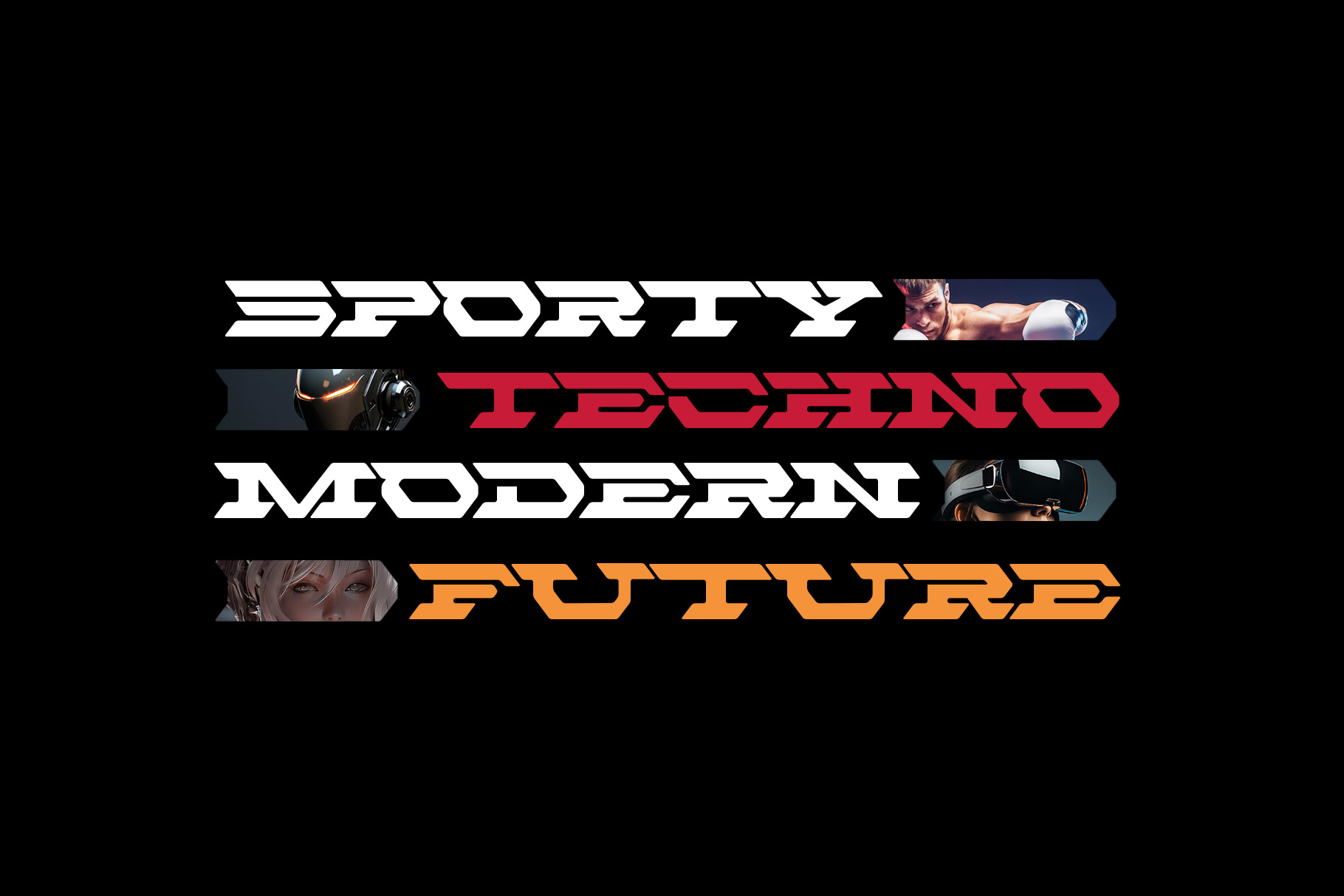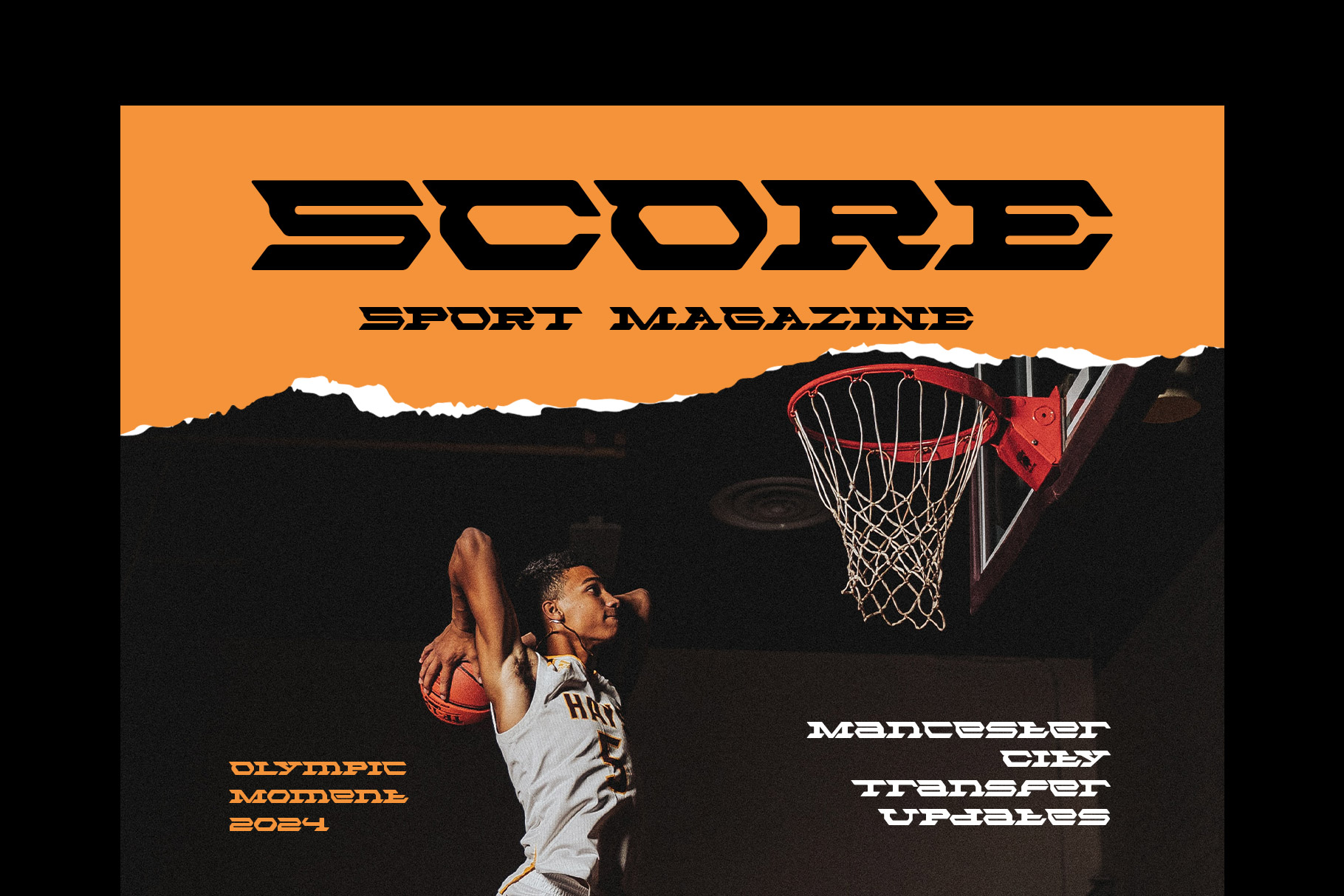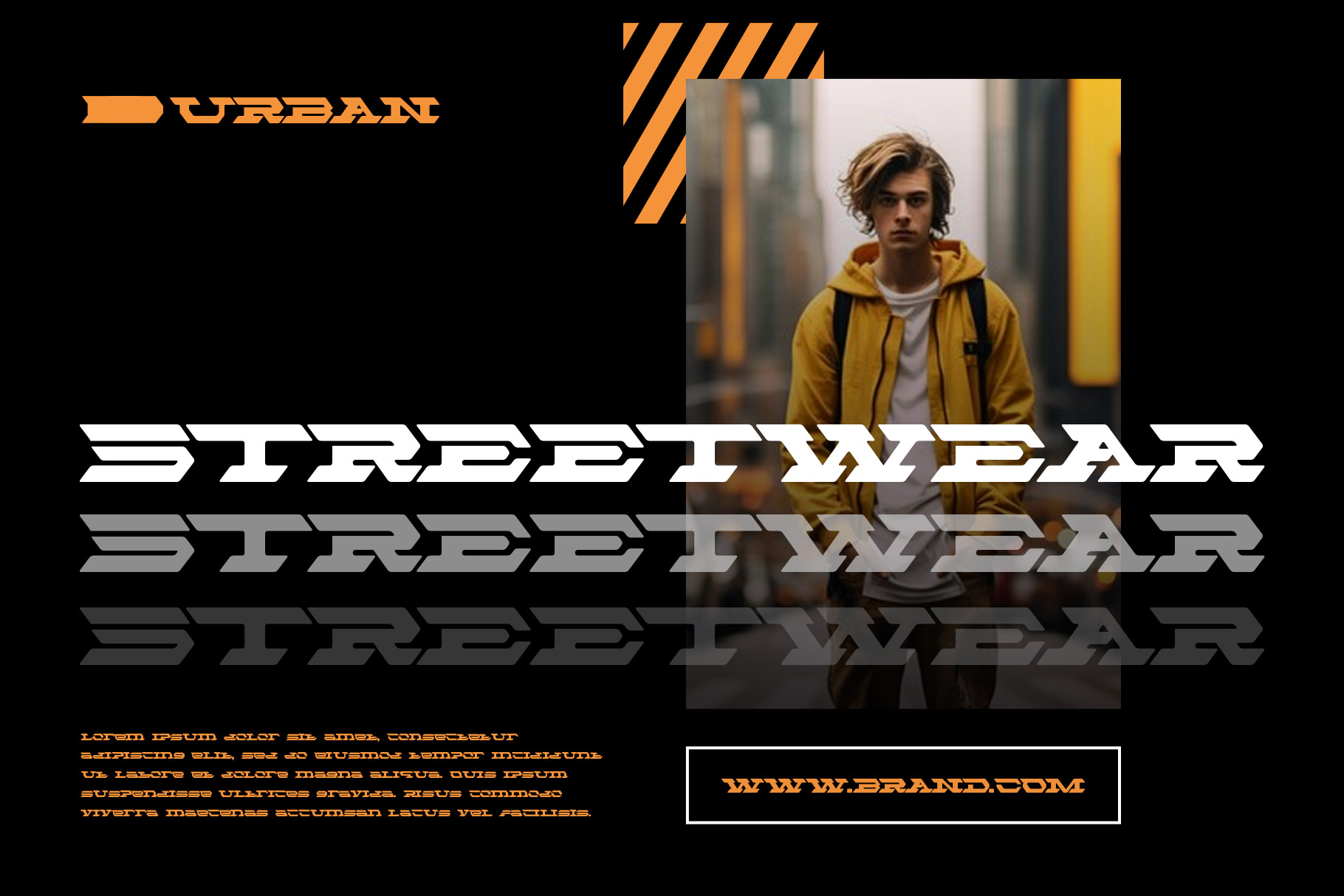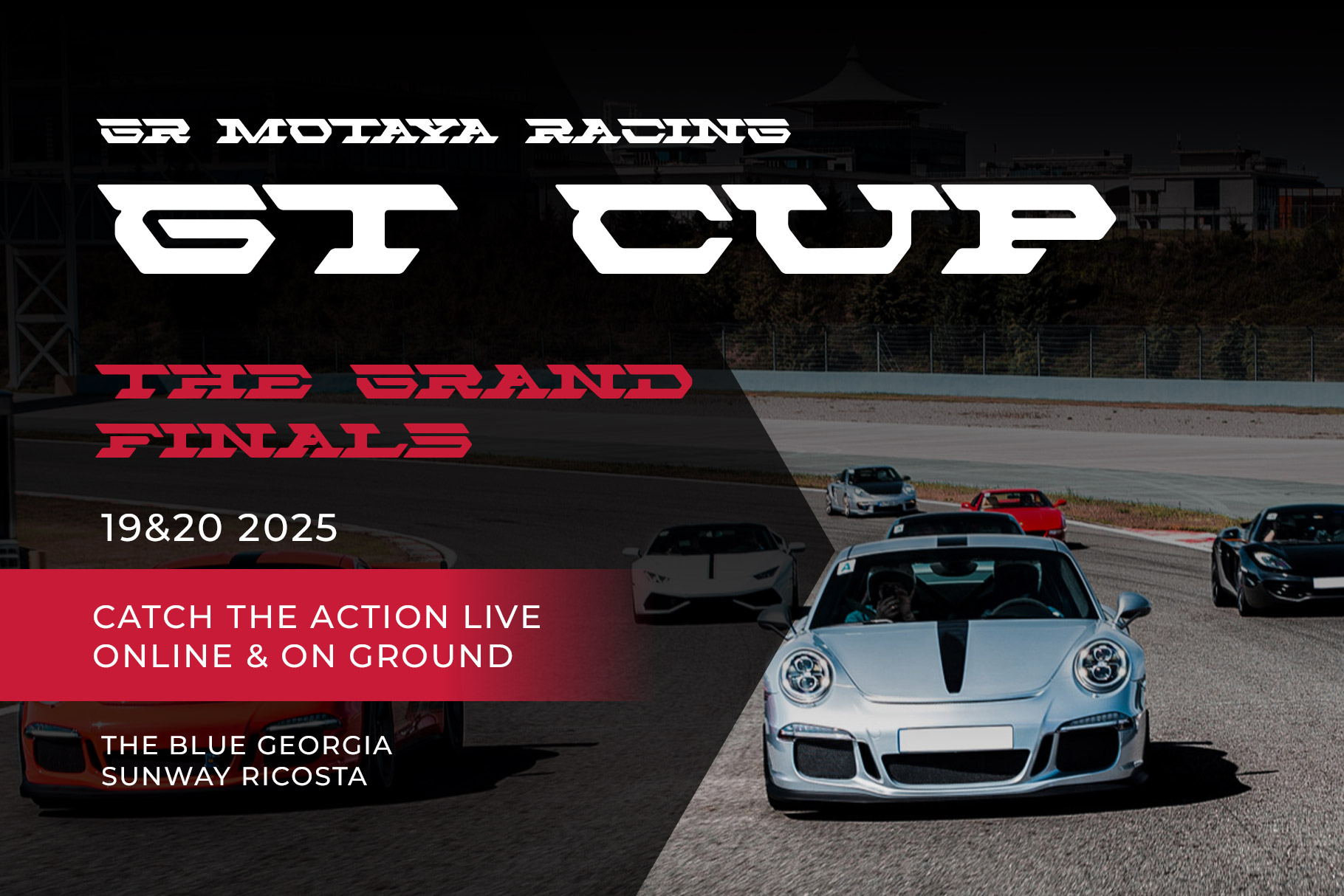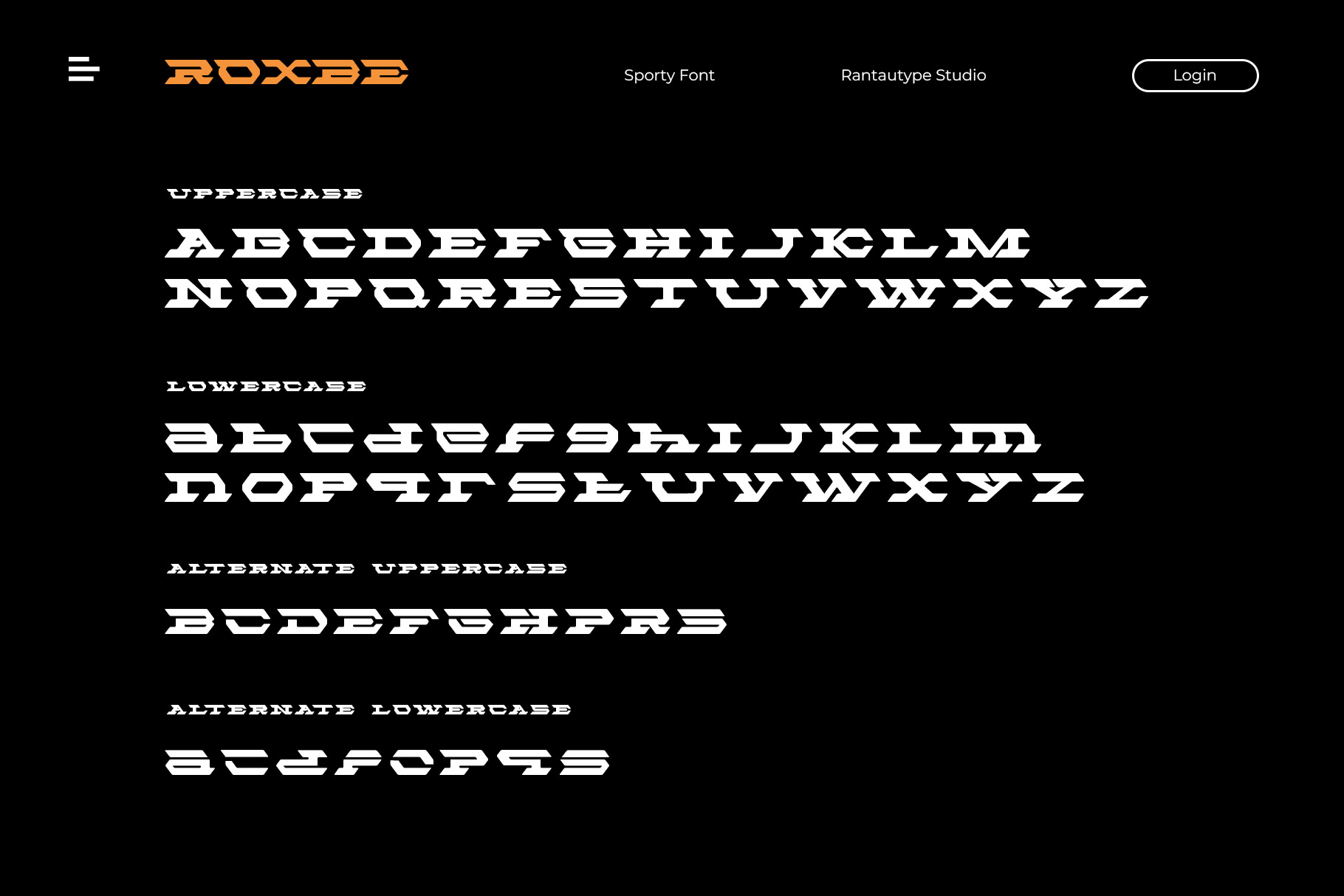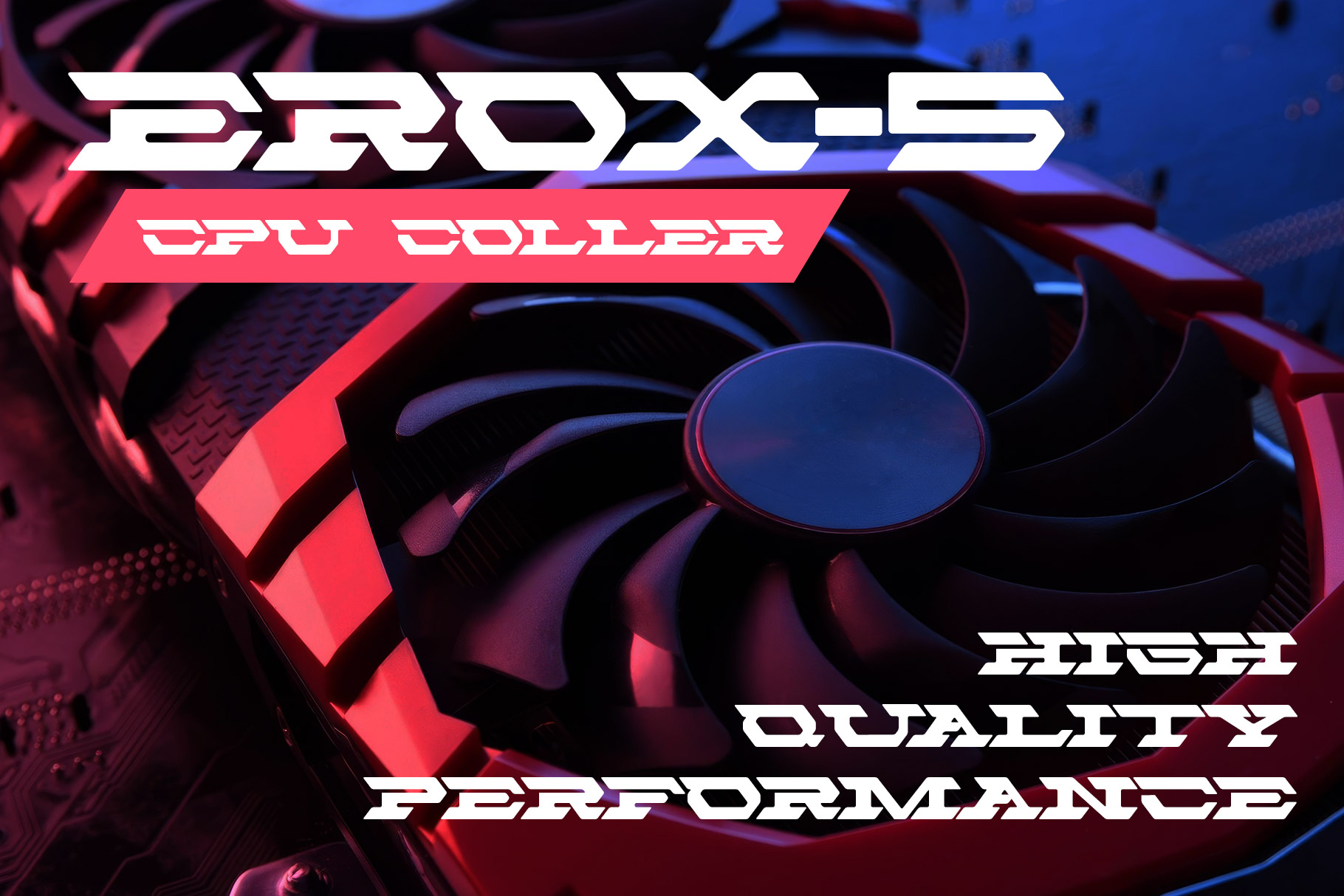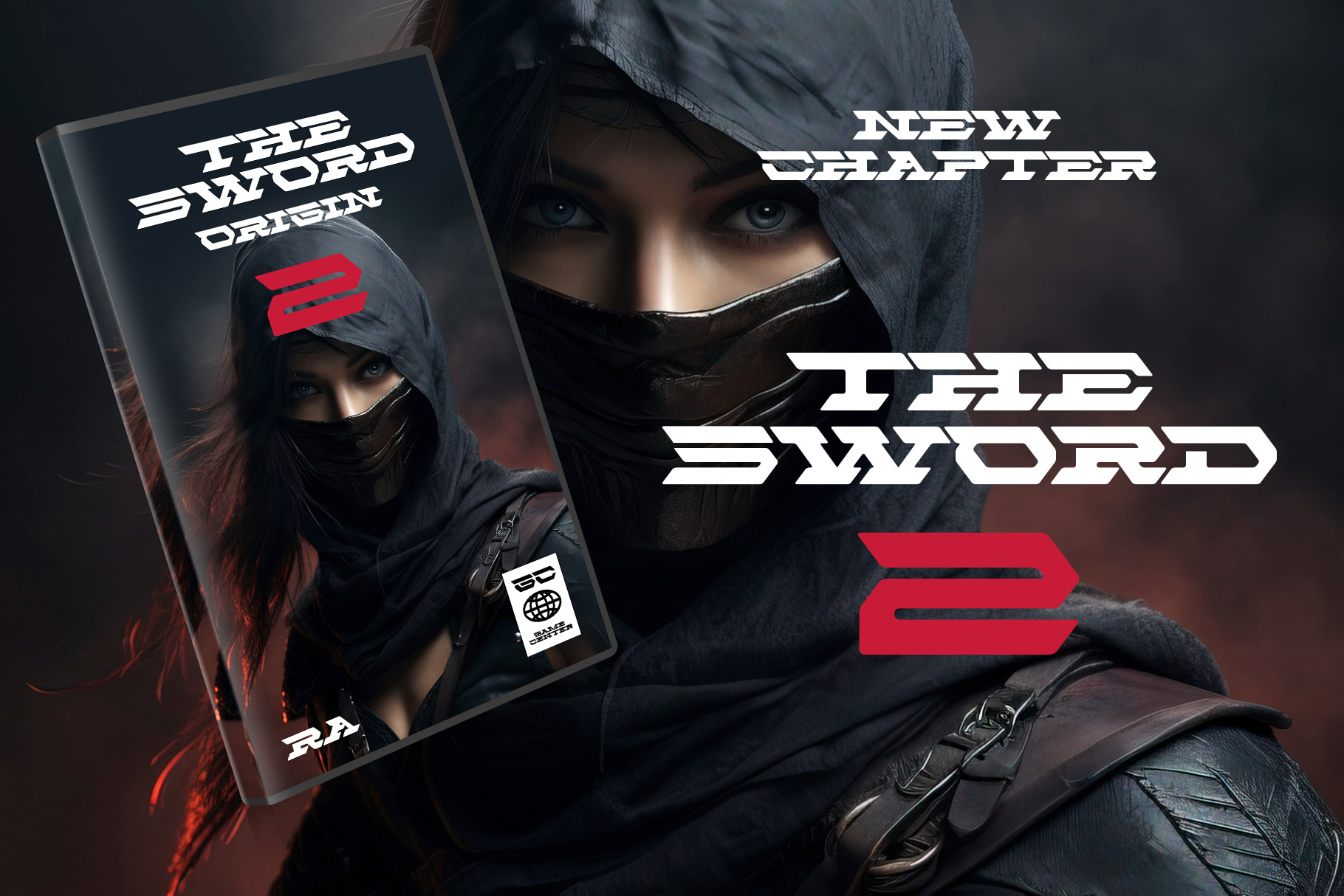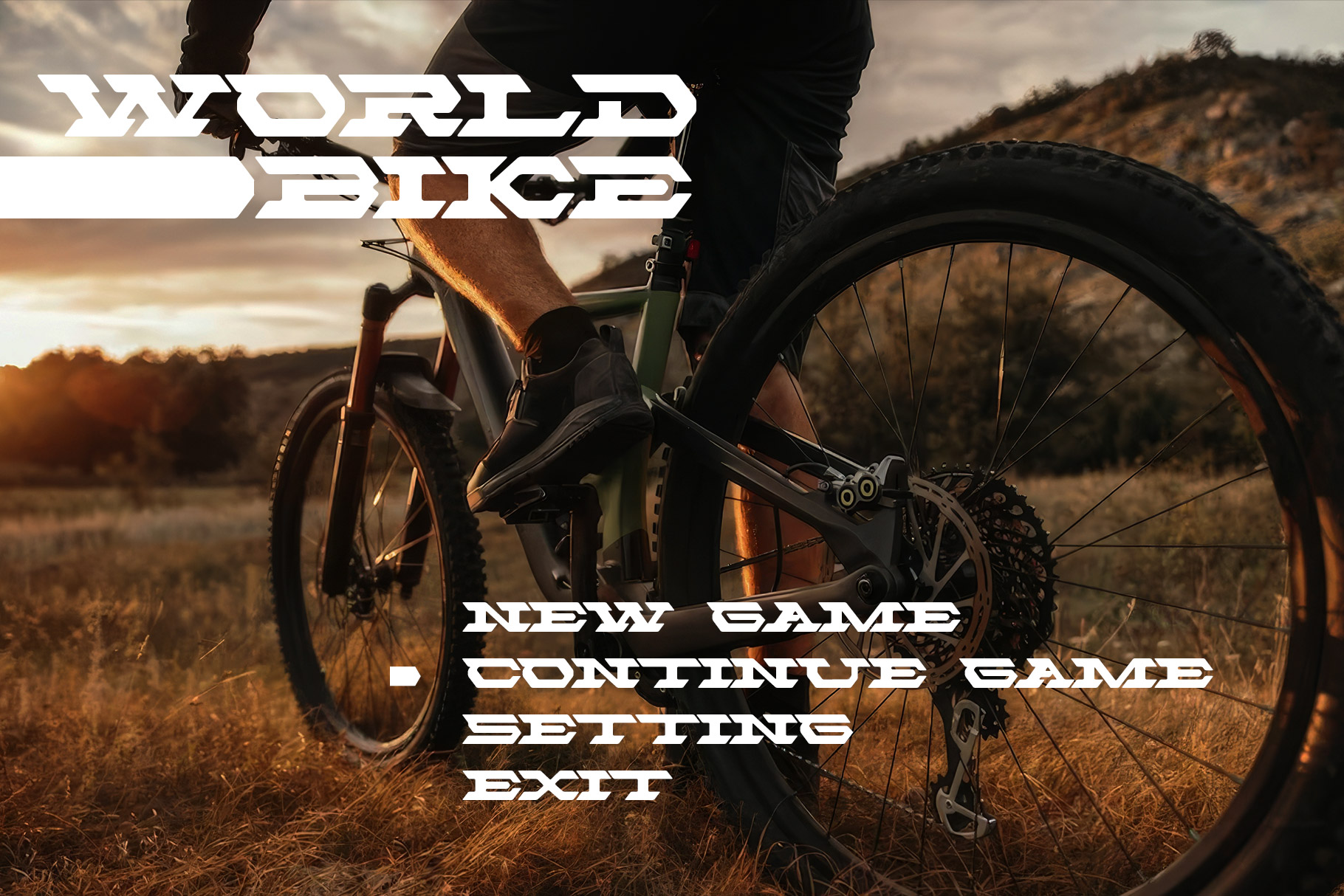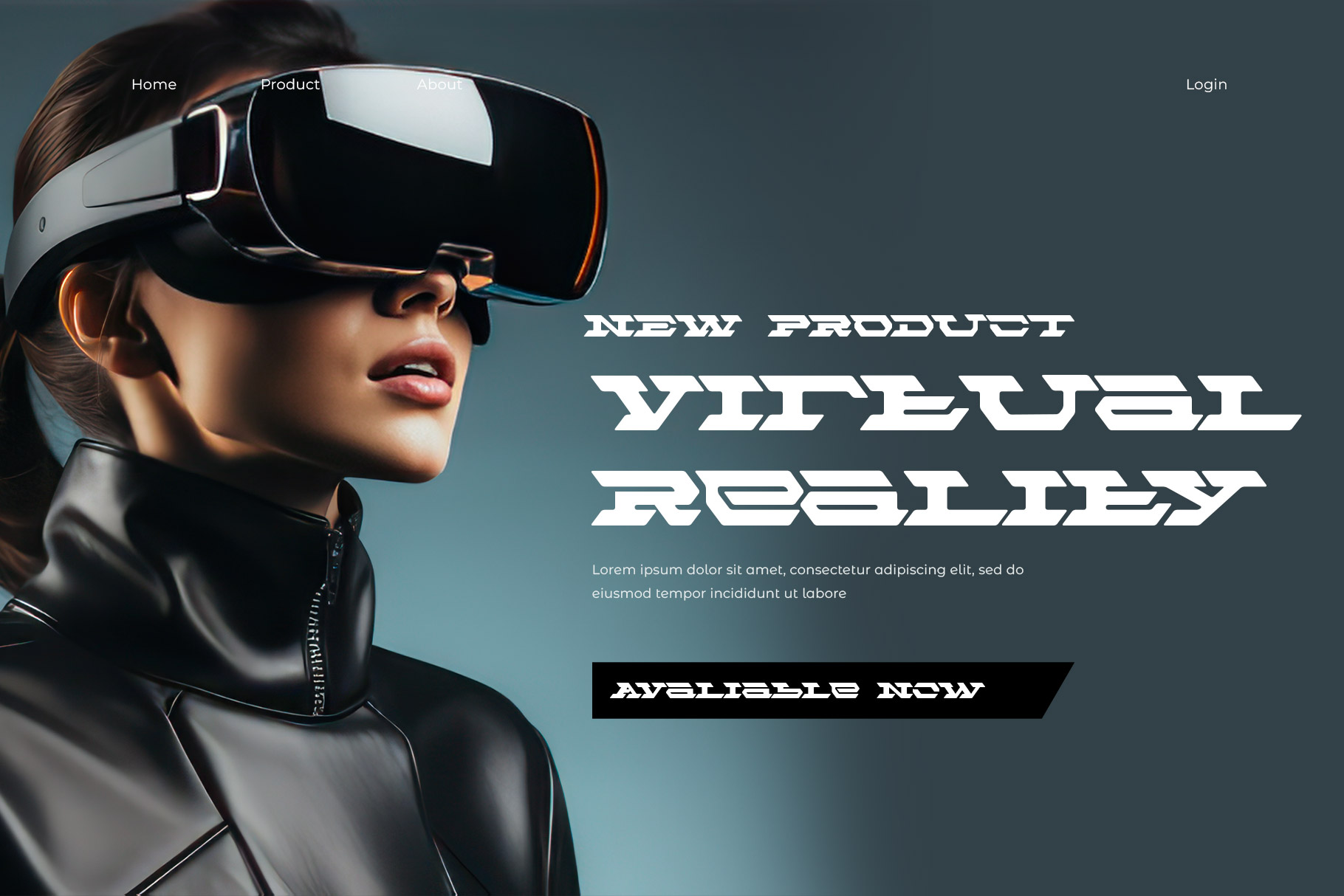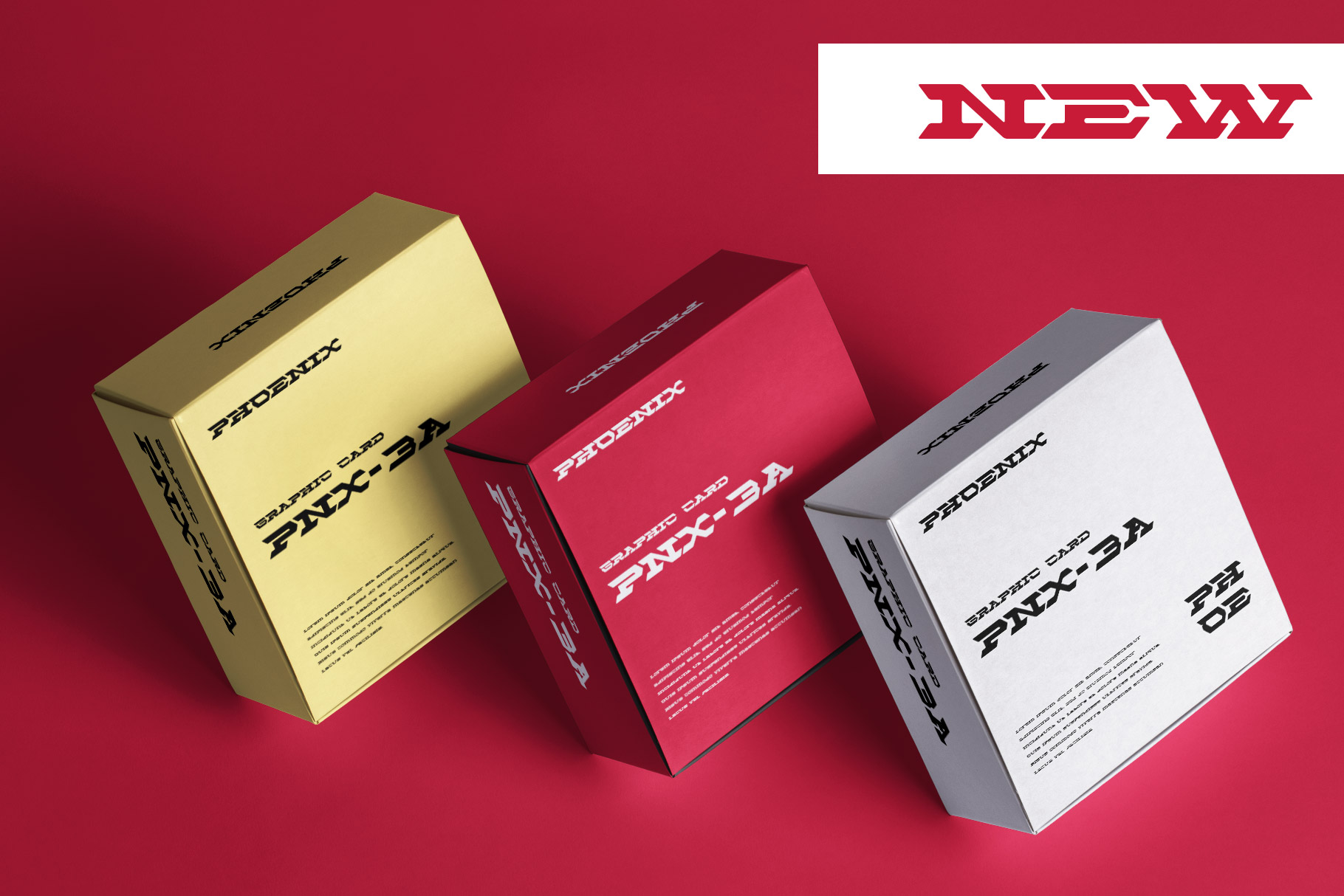
Roxbe Modern Sport Font
Roxbe is modern font inspire from sport and futuristic visual design. Roxbe come with strong and unique shape to make you design project attractive and stand out. Roxbe is complate font with alternate, ligature and already support multilingual character.
Roxbe is a perfectly choice for any creative endeavor, chic, lifestyle design such as logos, advertisements, stationery, branding project, display and magazine, invitation, corporate brand, product design, label, business project and many other project with sporty or futuristic touch.